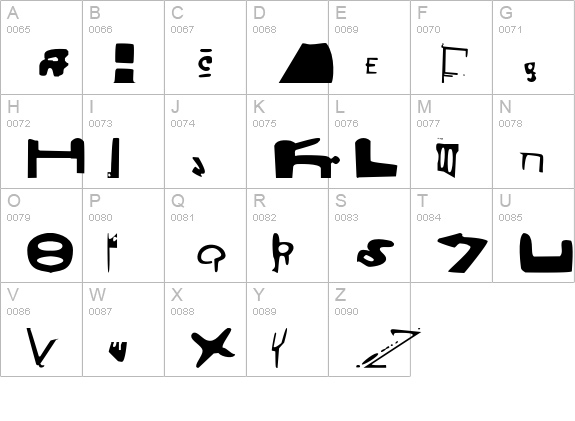
Surveillance-Victims Font Details
Surveillance-Victims font is a striking typeface that exudes a sense of mystery and intrigue. With its bold, angular letterforms and futuristic design, this font is perfect for adding a touch of edginess to your projects. Whether you're working on a poster, website, or branding materials, Surveillance-Victims font will make a lasting impression. But what sets Surveillance-Victims font apart is that it is not only visually captivating, but also freely available to download at FontsMarket.com. Yes, you read that right - you can get your hands on this unique font at no cost at all! So why wait? Add a touch of sophistication and modernity to your designs with Surveillance-Victims font today.